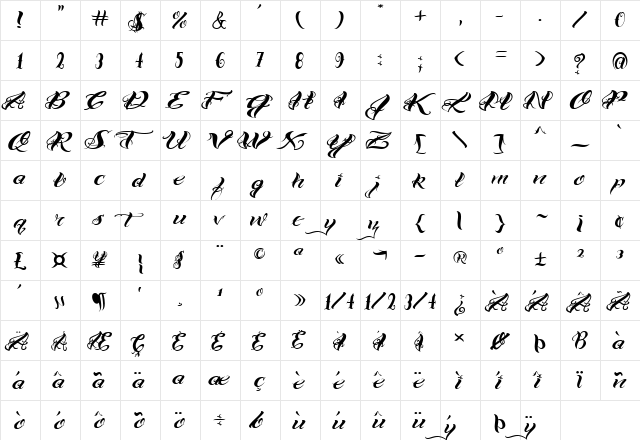
VTC-Bad Tattoo Hand One Regular
| Foundry | WolfBainX-aka-Larry E. Yerkes, Vigilante Typeface Corporation |
| Designer | WolfBainX-aka-Larry E. Yerkes, Vigilante Typeface Corporation |
| Year | 2010 |
Design Context for VTC-Bad Tattoo Hand One Typeface
VTC-Bad Tattoo Hand One brings a calligraphic fluidity to the page — its connecting strokes and expressive curves give it an unmistakably human quality.
Font Pairing: Combine VTC-Bad Tattoo Hand One with a simple geometric sans for maximum contrast — the tension between flowing curves and clean structure is a classic typographic pairing.
Pro Tip: Use VTC-Bad Tattoo Hand One for short runs of text — names, titles, or taglines. Extended body copy in script faces tires the eye quickly.